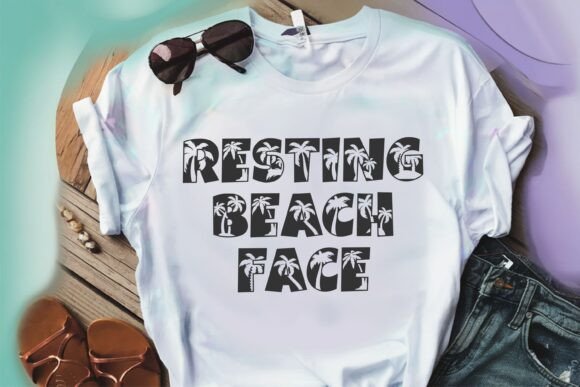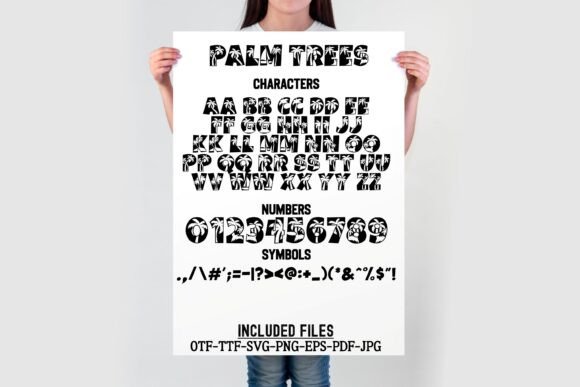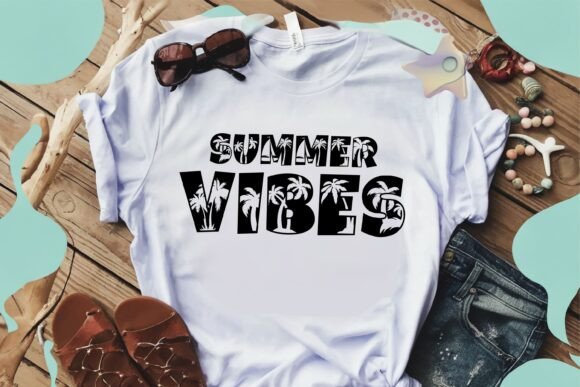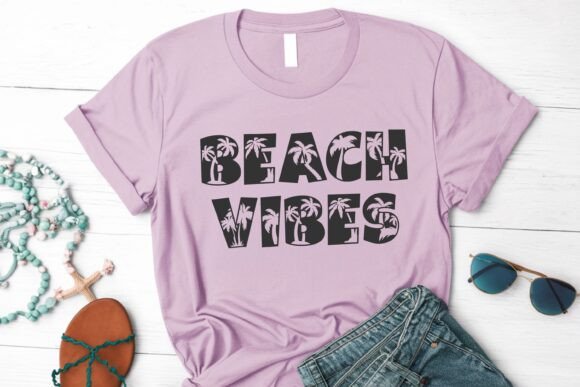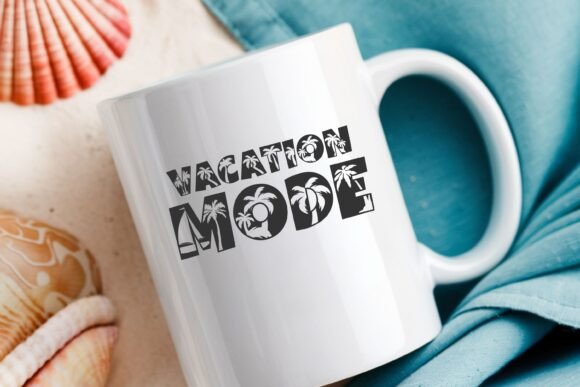
Introduction to Palm Trees Font
Do you ever find yourself daydreaming about a tropical getaway, surrounded by swaying palm trees and the sound of waves crashing against the shore? As designers, we often find ourselves in moments of creative bliss, searching for the perfect design element to transport our audience to a more relaxed state of mind. That’s where the Palm Trees Font comes in – a bold and playful alphabet that brings the essence of the island to your designs.
Whether you’re working on a summer-themed project or simply want to add a touch of tropical flair to your designs, the Palm Trees Font is a must-have resource. With its high-quality design and transparent background, you can easily incorporate it into your creative project, from crafting t-shirts and mugs to designing invitations and wall art. And the best part? This font is compatible with popular cutting machines like Cricut and Silhouette, making it a valuable addition to your design arsenal.
Key Features of Palm Trees Font
- High-quality design: This font is designed to provide a unique and creative look for your project, perfect for designers and artists working on a variety of creative projects.
- Transparent background: The transparent background of this font allows for seamless integration into any design, making it an ideal design resource for graphic designers and artists.
- Resolution-independent: With a resolution-independent design, the Palm Trees Font maintains its quality and clarity regardless of the resolution or size it’s used at.
- Unique tropical theme: The Palm Trees Font features a unique tropical theme, perfect for designers working on projects related to travel, summer, or tropical destinations.
Honest Review: Palm Trees Font
One of the standout features of the Palm Trees Font is its high quality and versatility. It’s perfect for creating a tropical vibe, and its transparent background makes it easy to overlay on different images or backgrounds.
- ✨ Versatile and can be used in various design contexts
- ✨ Transparent background for easy overlay
- ⚠️ Limited character set and font styles
Overall, I’m impressed with the Palm Trees Font, and I think it’s a great resource for designers and artists looking for a unique and creative font. While it may have some limitations, it’s a high-quality design that’s perfect for adding a touch of tropical flair to any project.
Palm Trees Font
The Palm Trees Font is a unique and creative design resource that can add a touch of tropical elegance to any project. With its high-quality graphics and transparent background, this font is perfect for designers looking to create stunning visuals.
When using the Palm Trees Font, be sure to experiment with different sizes and colors to create a unique design. You can also combine the font with other design elements, such as images and graphics, to create a stunning visual.
The Palm Trees Font is perfect for a variety of creative projects, including:
- Beach-themed designs
- Tropical-inspired graphics
- Summer-themed invitations
- Beach wedding designs